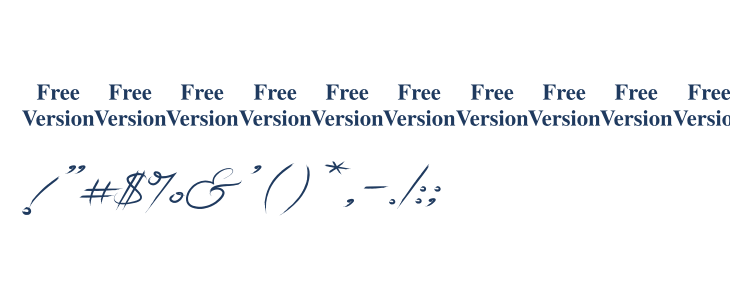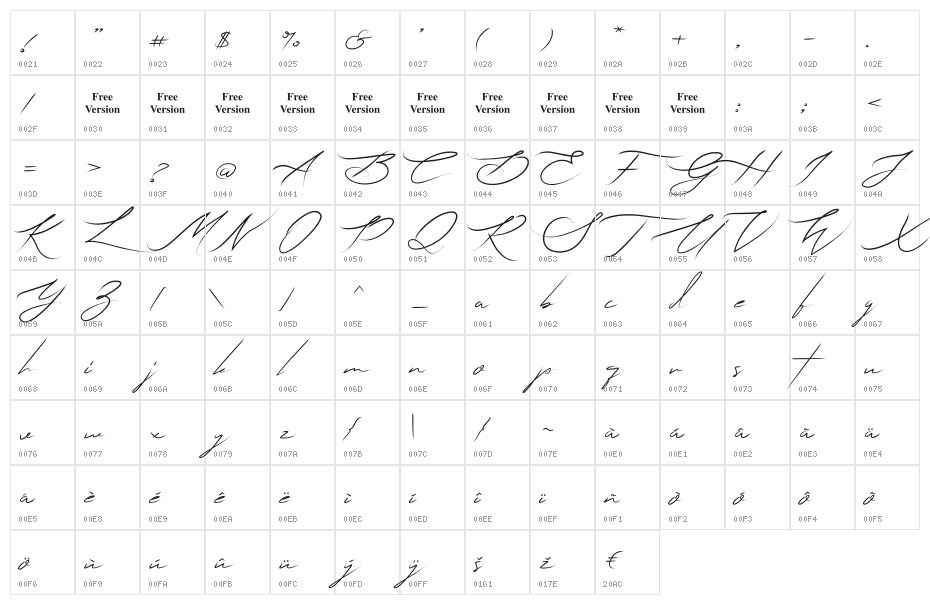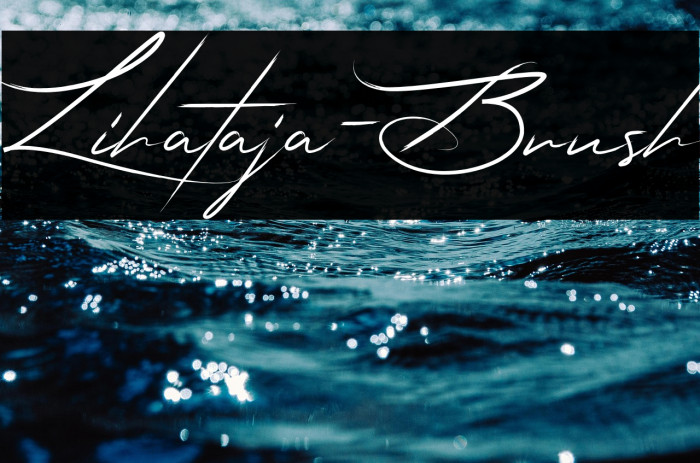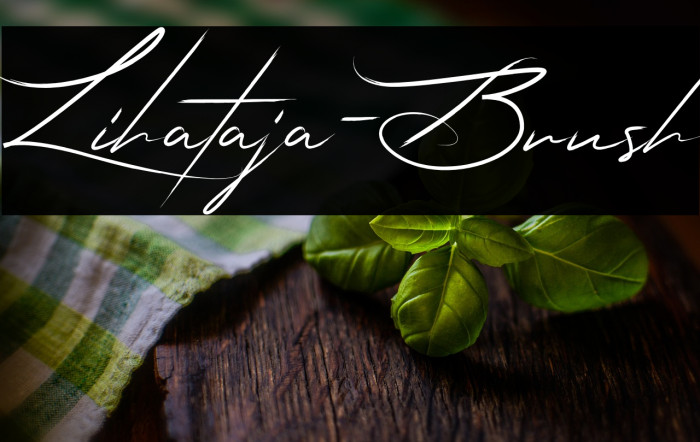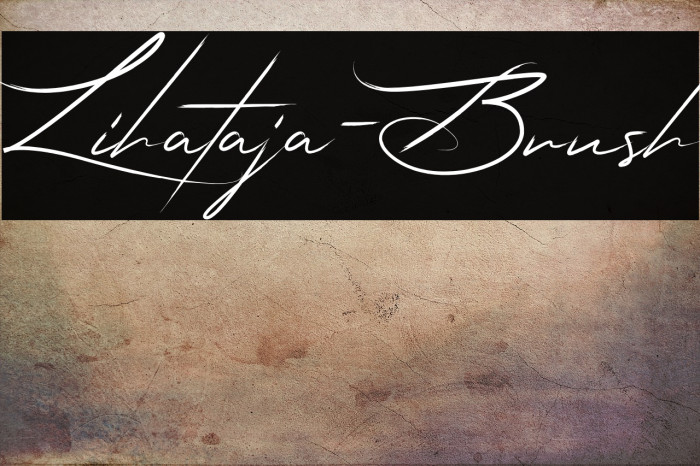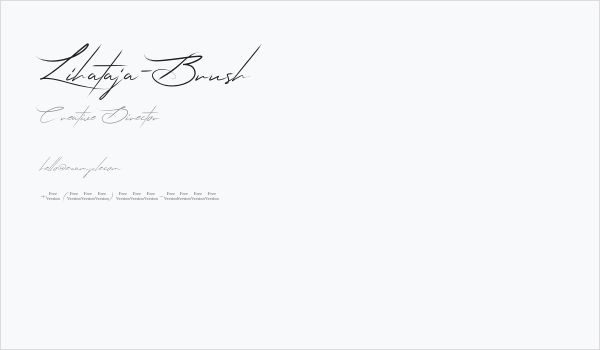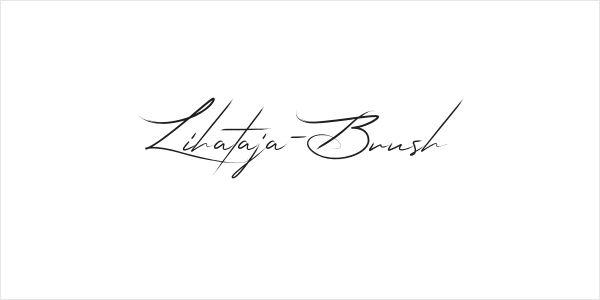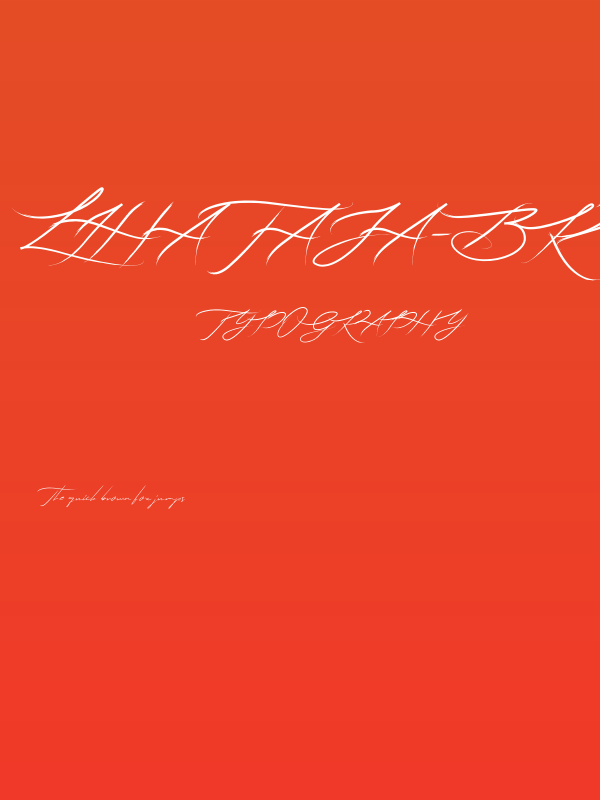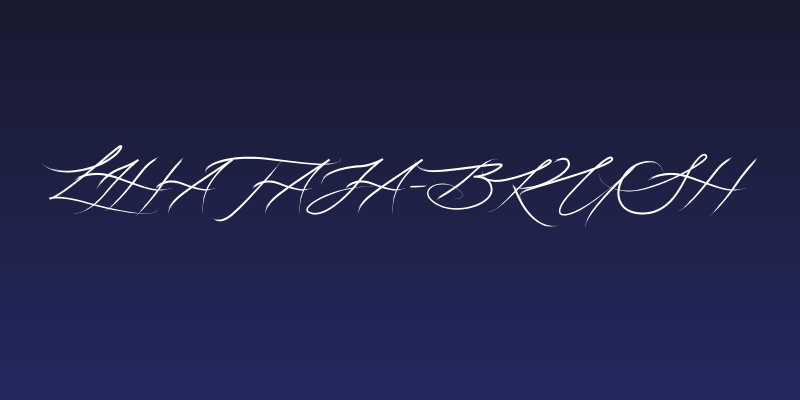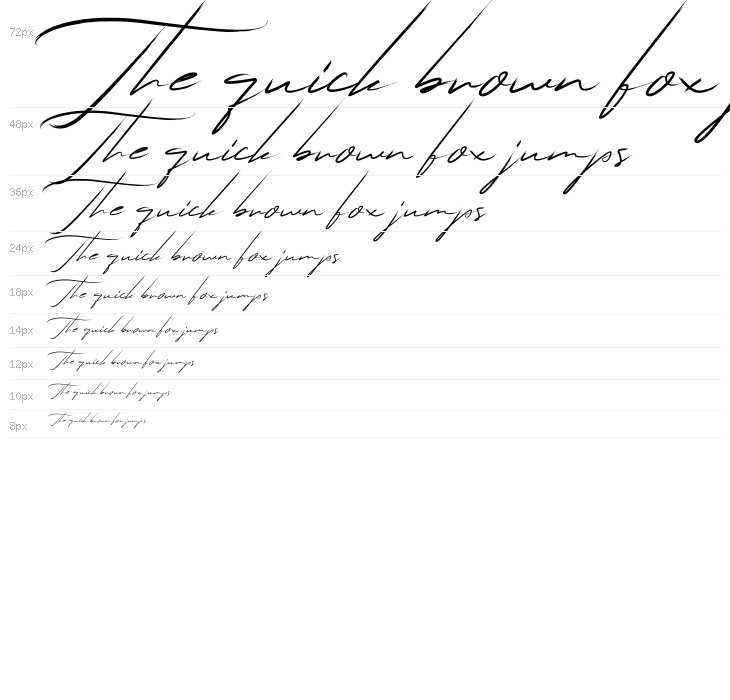
Lihataja-Brush Font
Lihataja-Brush Description
This font features an elegant and flowing script style, characterized by its fluid and connected letterforms. The strokes are smooth and exhibit a natural hand-drawn quality, giving it a personal and artistic touch. The uppercase letters are bold and sweeping, while the lowercase letters maintain a consistent rhythm and balance. The font includes a full set of uppercase and lowercase letters, numerals, and a variety of special characters, making it versatile for various design needs. Its overall appearance is sophisticated and stylish, suitable for projects that require a touch of elegance and creativity.